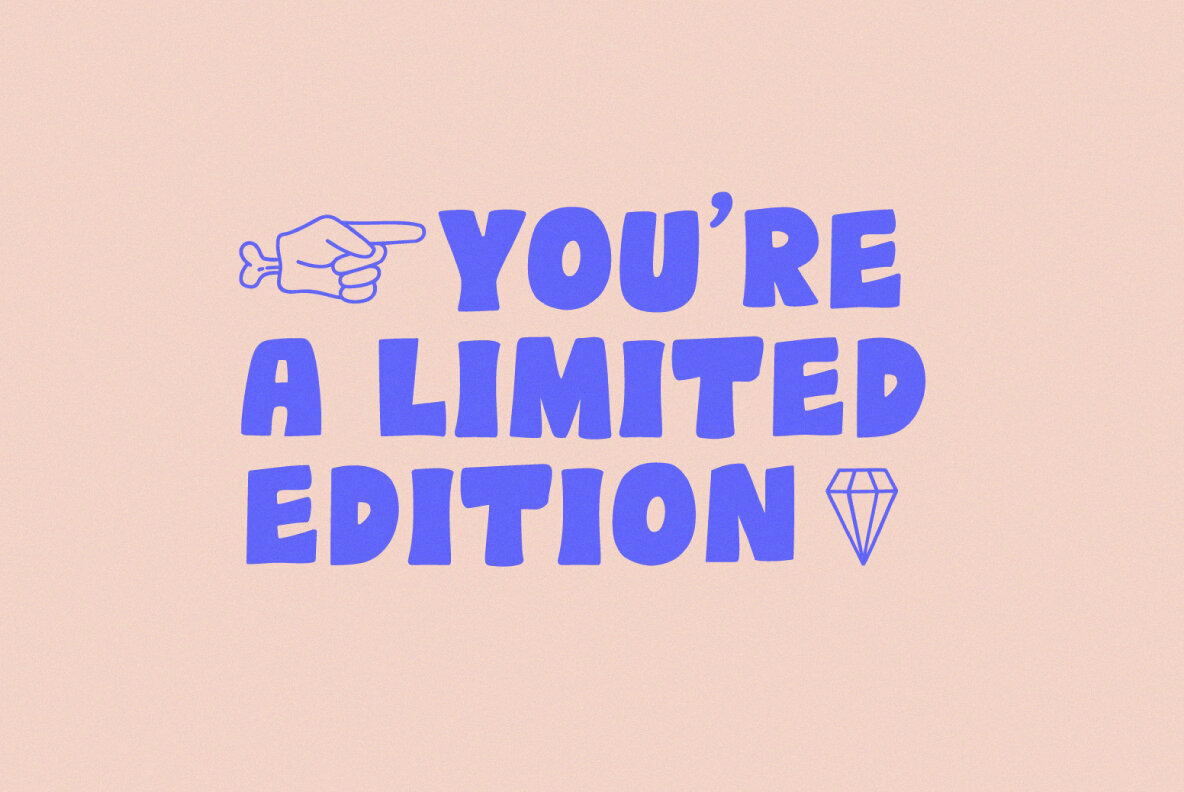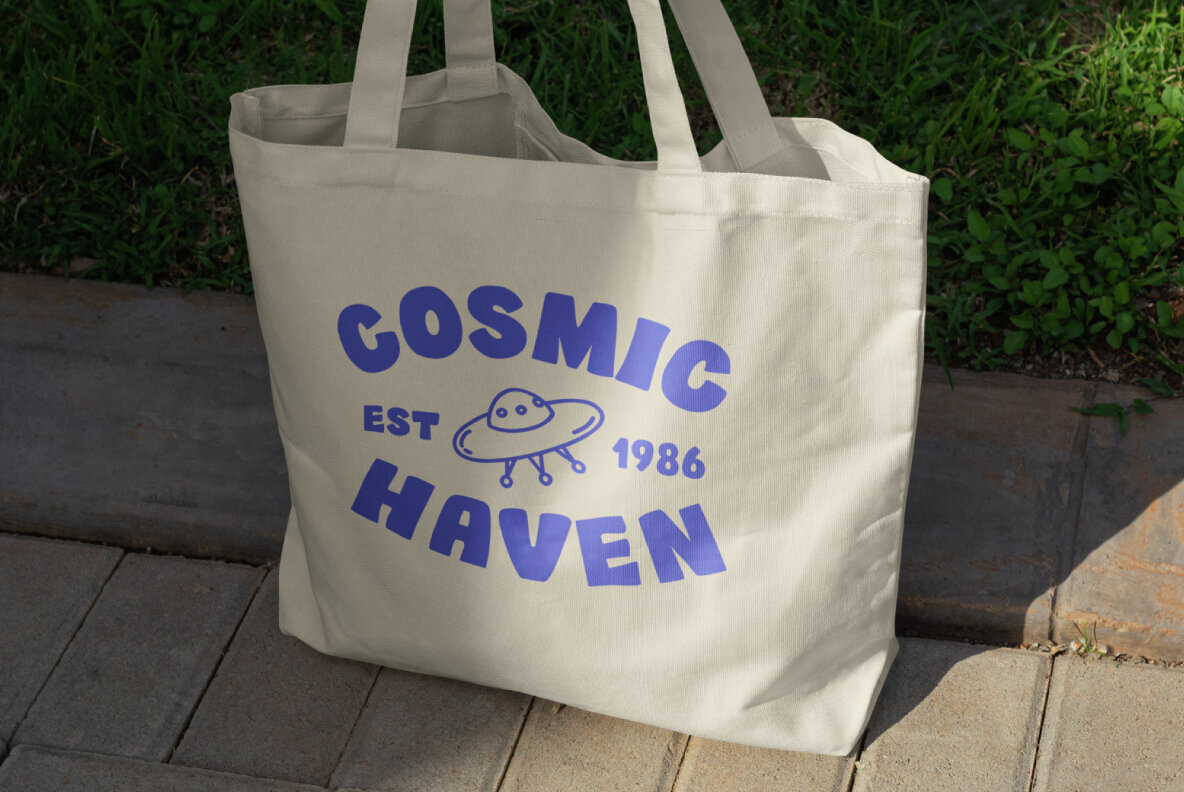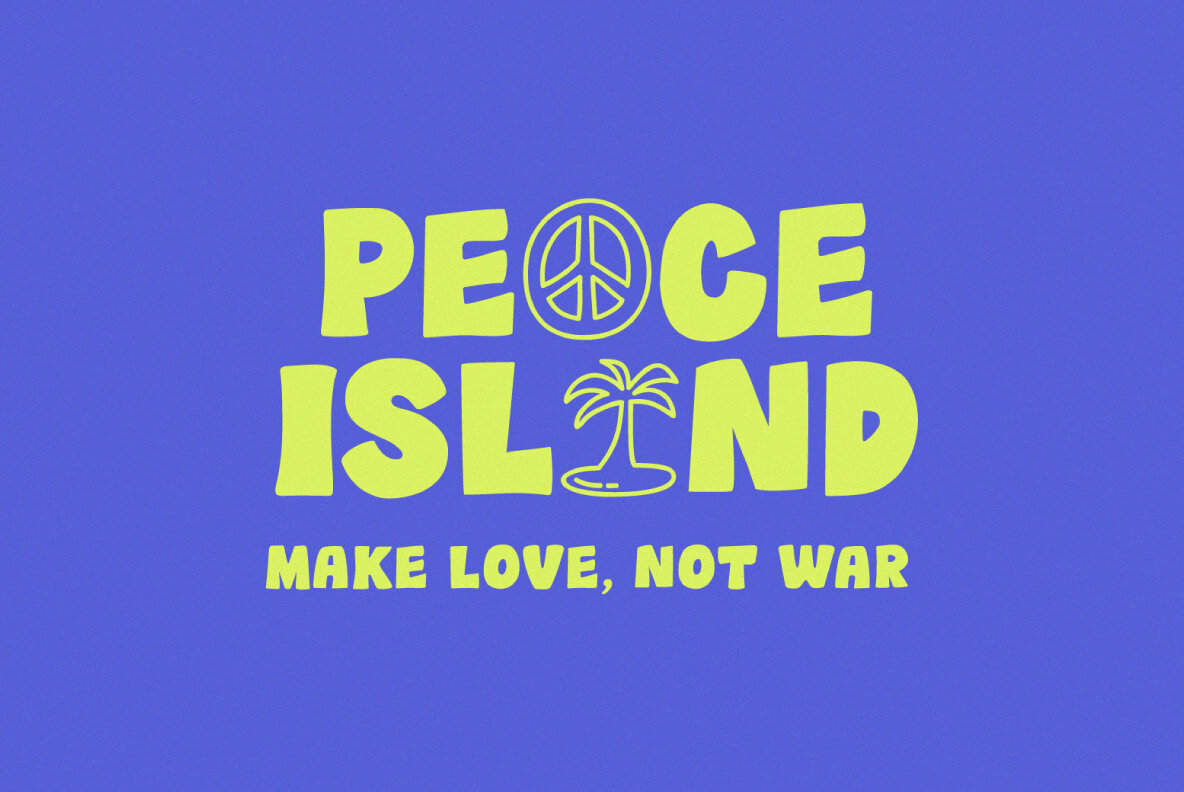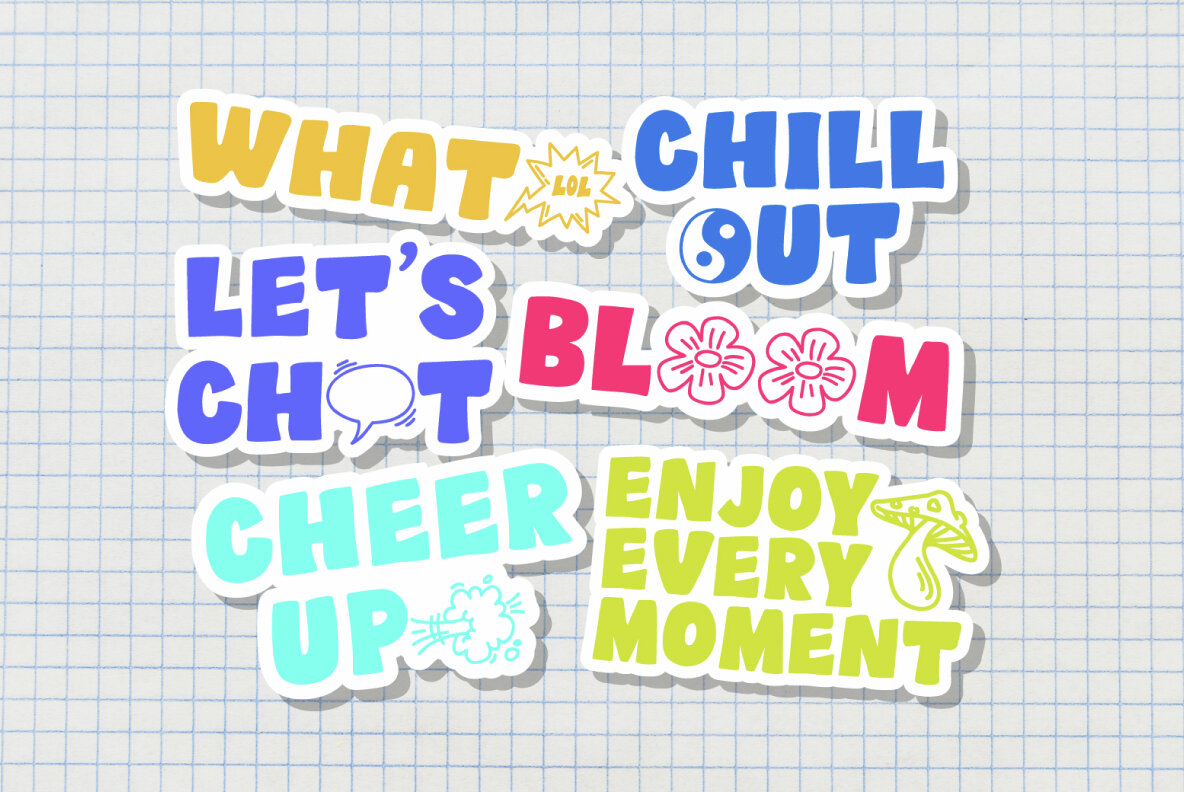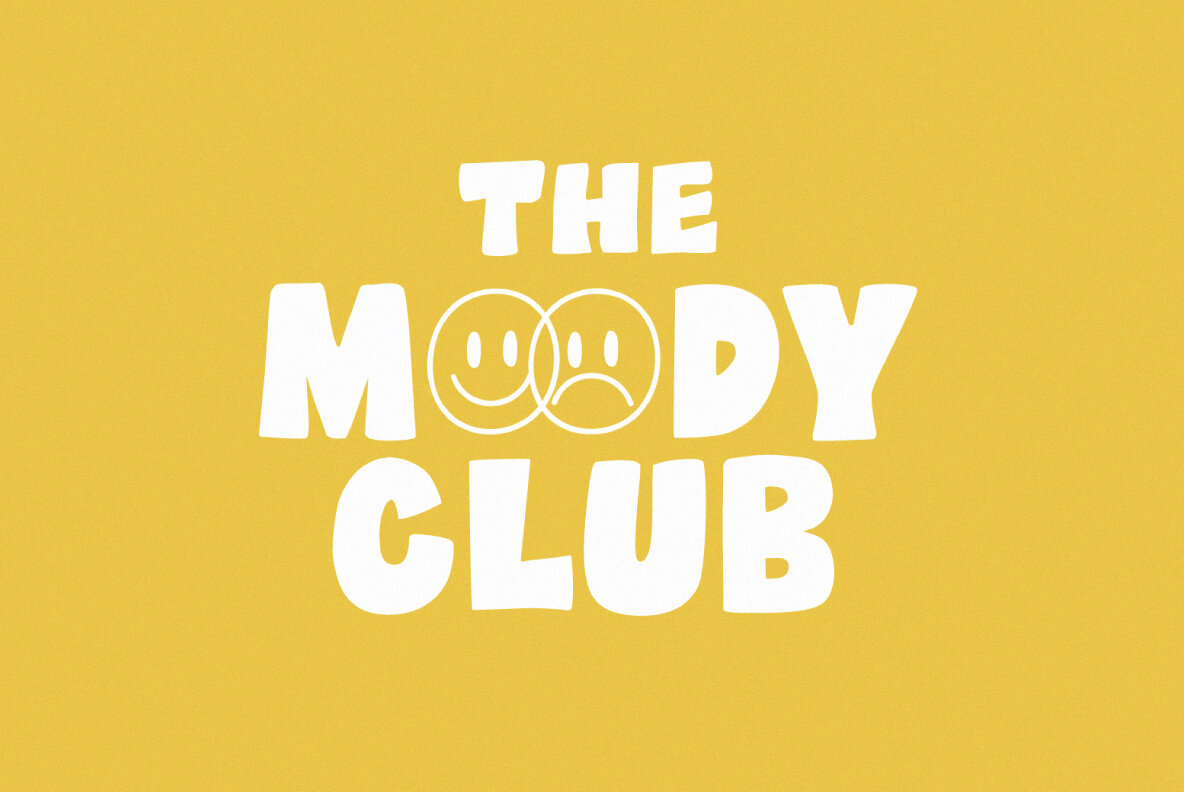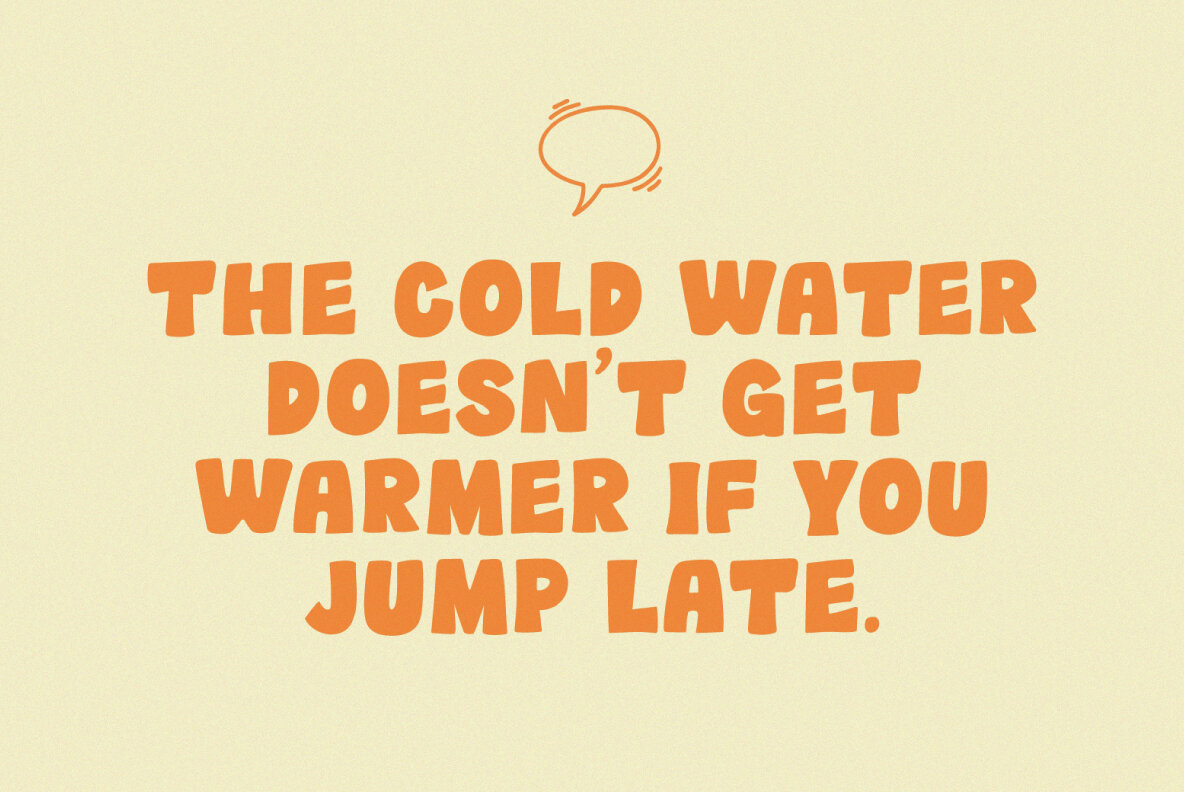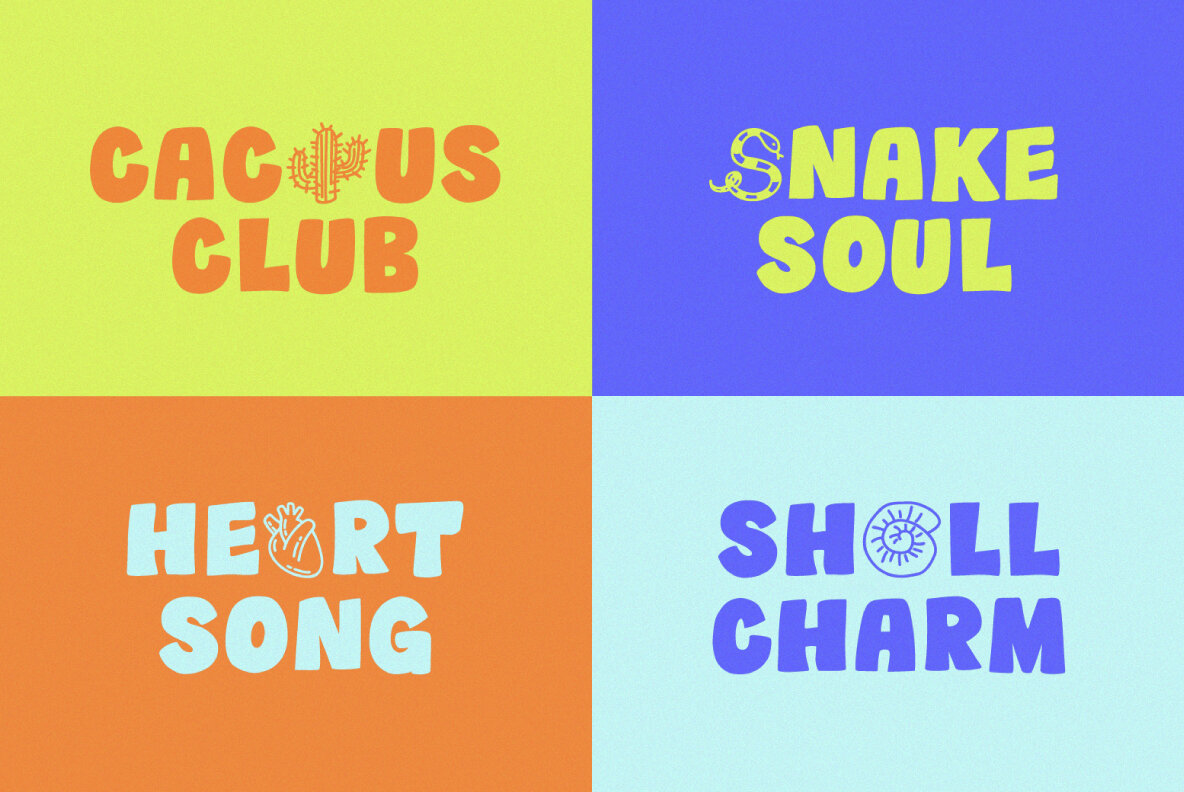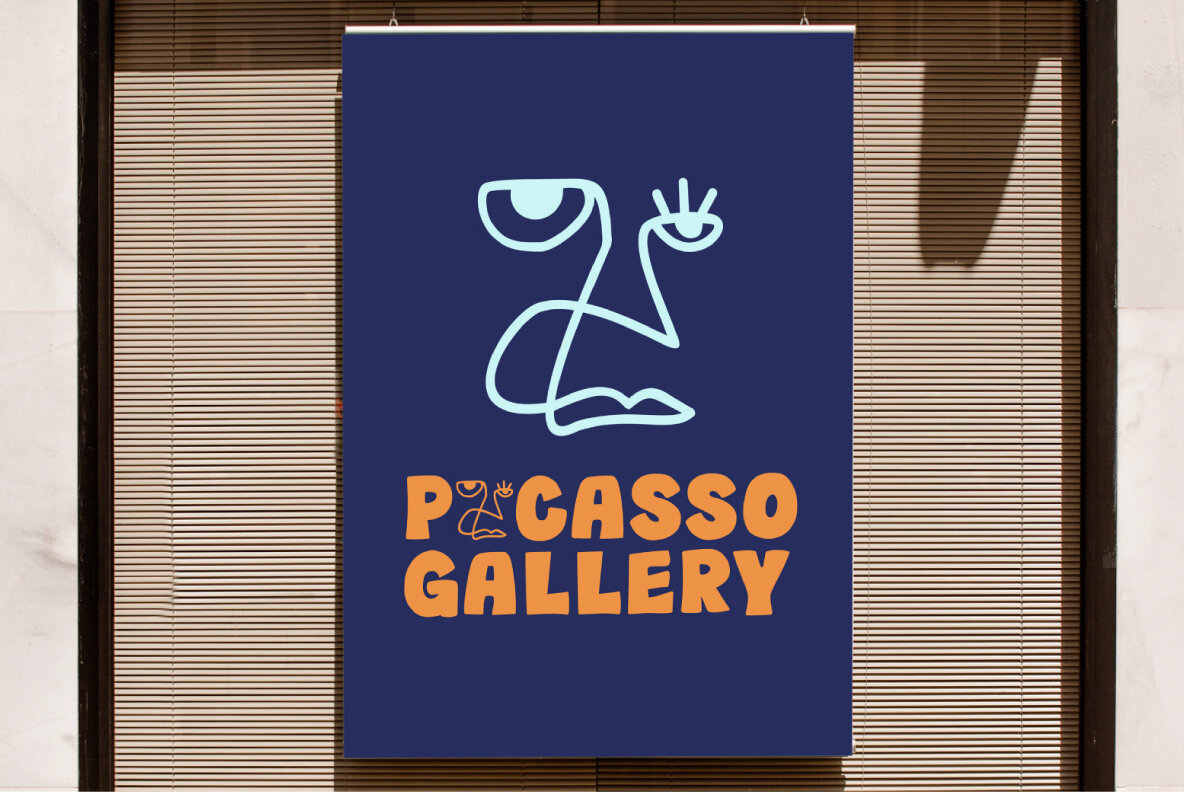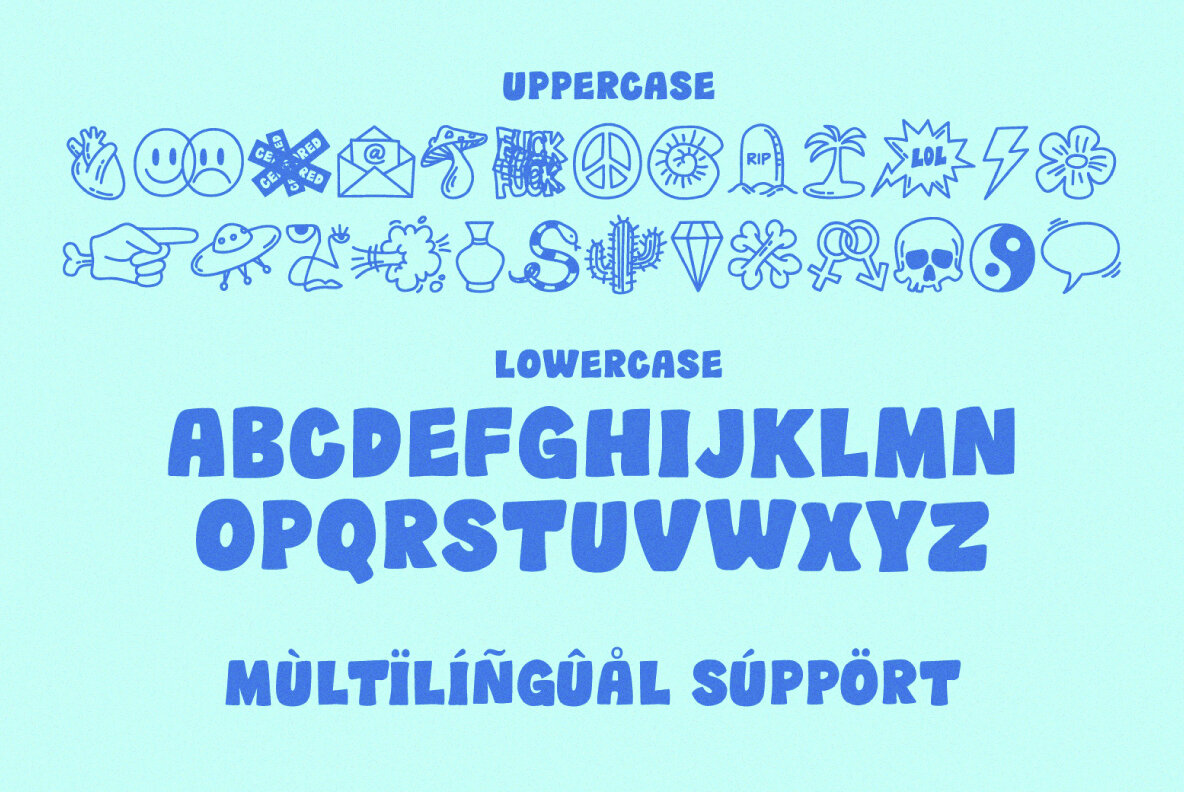
Wush Font
Wush Regular
Wush is a playful display font designed to bring a delightful and cheerful vibe to any project. With its all caps format and bouncy curves, this font is perfect for injecting fun and excitement into your designs. The bold strokes make it a standout choice for eye-catching graphics, ensuring your text garners attention.
Ideal for comics, books, and whimsical projects, Wush includes extra dingbats that enhance its versatility. This dynamic font is excellent for creating engaging visuals that capture the audience's imagination. Whether you're designing a comic strip, a children's book, or a quirky poster, Wush adds a spirited and lively element to your work.